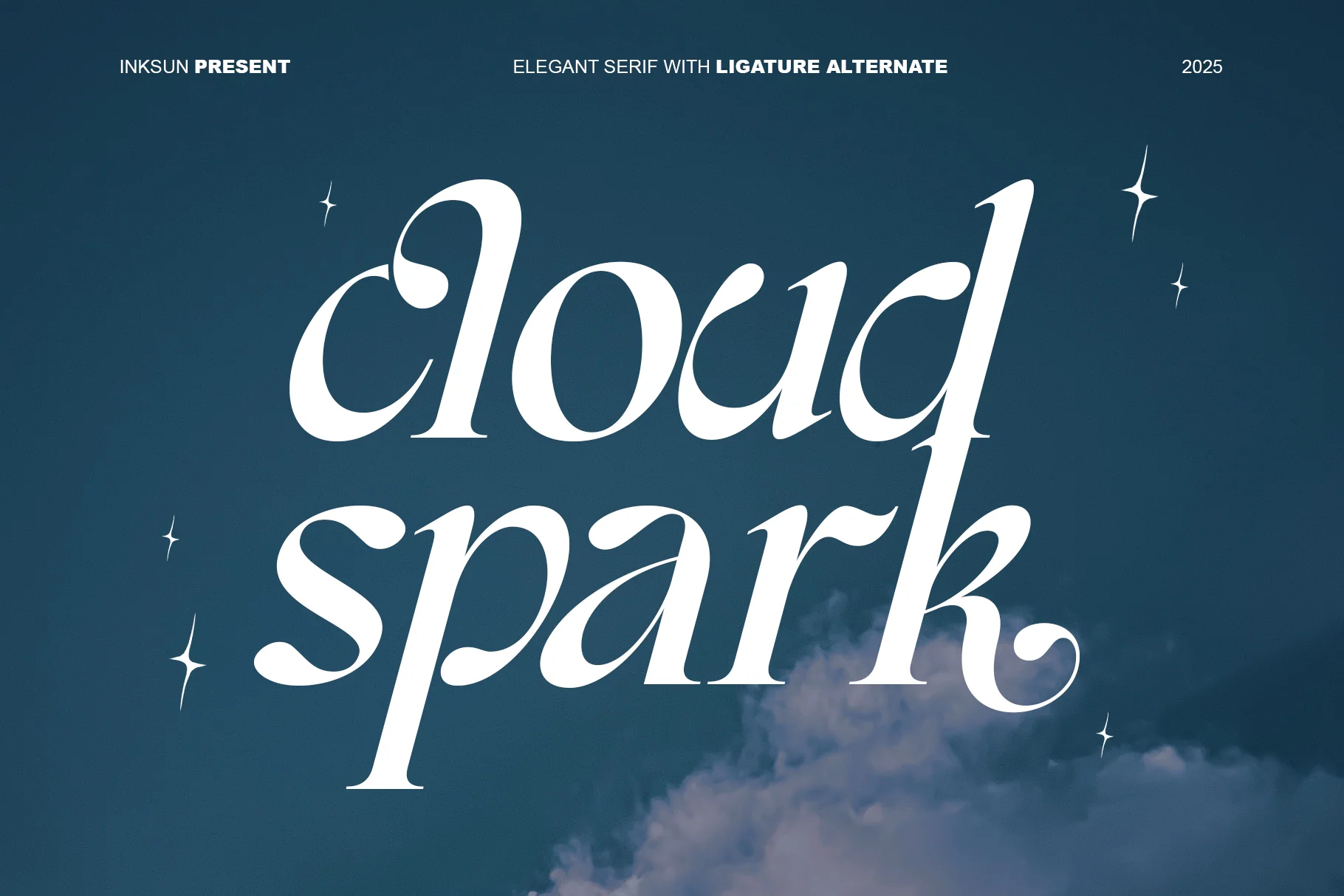
Cloud Spark
"Cloud Spark" an elegant serif typeface.The design merges classic serif characteristics with unique, modern twists, conveying a magical, luxurious, and dreamy feel.The font exudes a sense of luxury, romance, and personal touch. will perfect for many project: book, magazines, logo, branding, photography, quotes, blog header, poster, advertisements, etc.
Features
- Uppercase and Lowercase – Complete range of letter cases for diverse uses.
- Numerals – Includes numbers for various creative needs.
- Functional – Designed for efficiency and aesthetic appeal.
- Multilingual Support – Includes characters for multiple languages.
- Stylistic Variations – Offers creative style options.